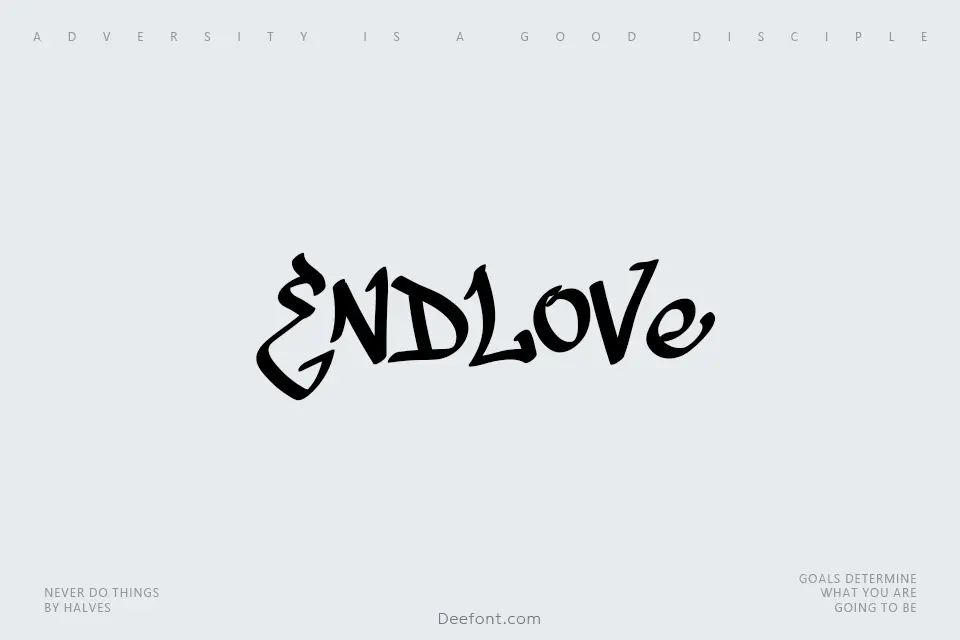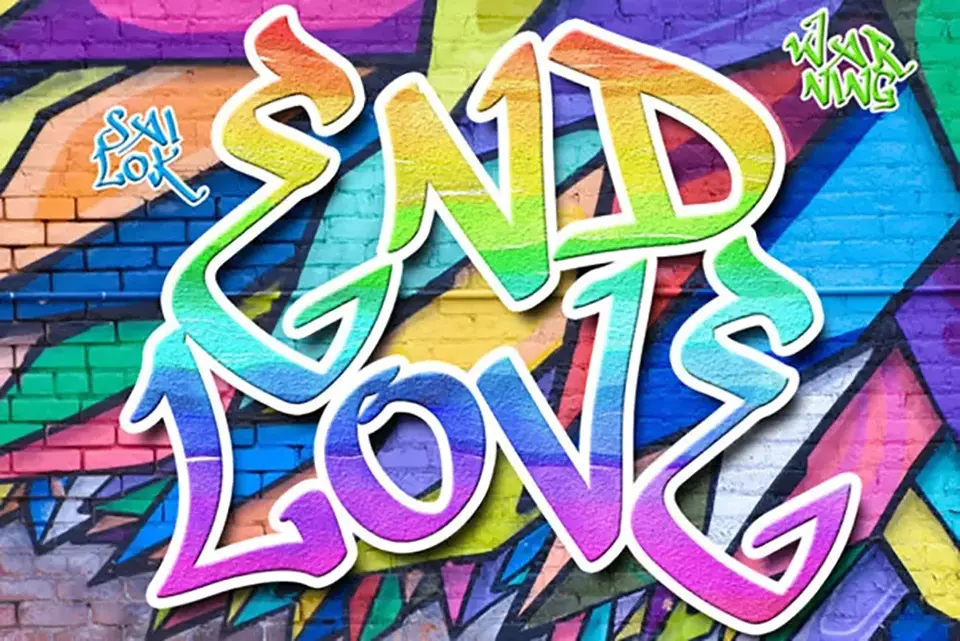
Endlove Font
Endlove is a distinctive script and graffiti-inspired display font that brings creative energy to your projects. Featuring flowing letterforms with playful characteristics, this font excels in headlines, signage, and decorative branding. With its unique blend of script elegance and street-art aesthetic, Endlove offers 174+ language support, making it ideal for diverse global creative applications and eye-catching visual communications.